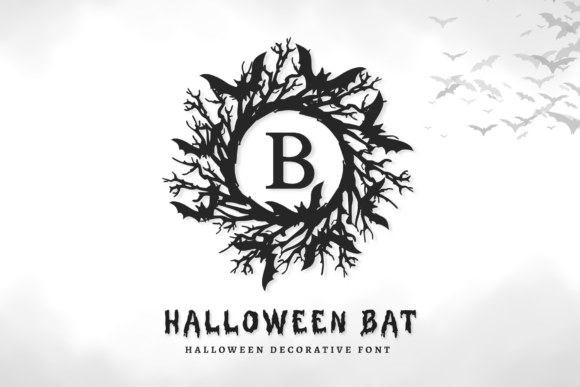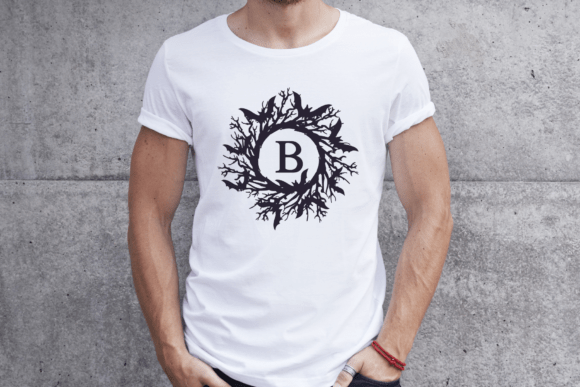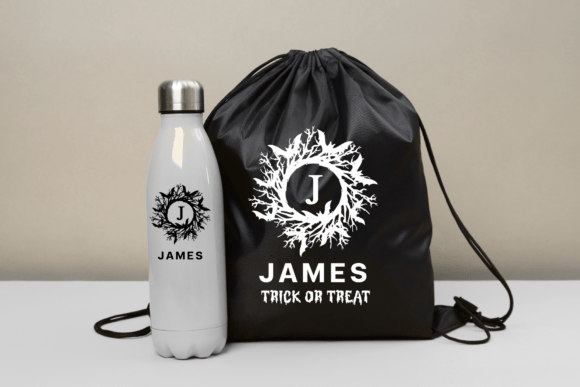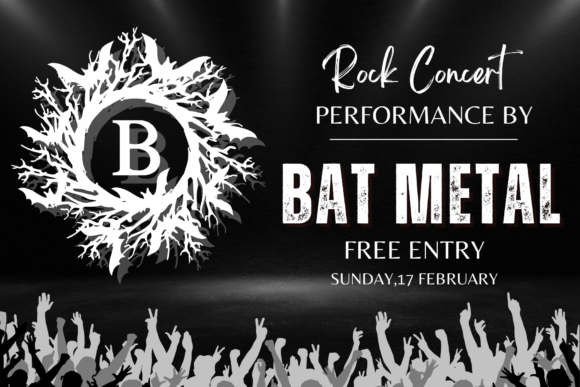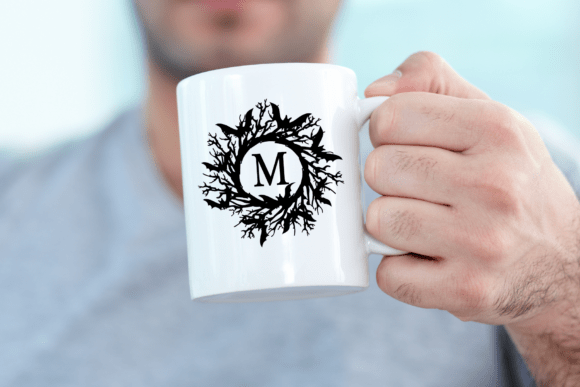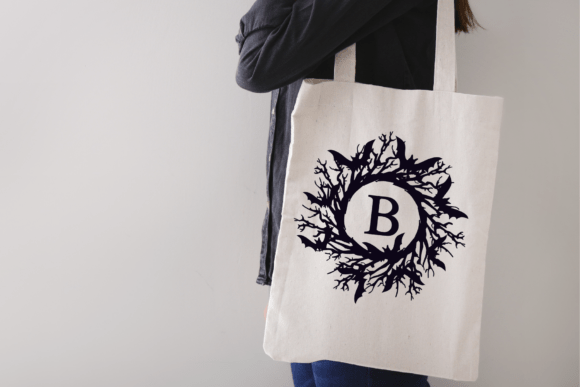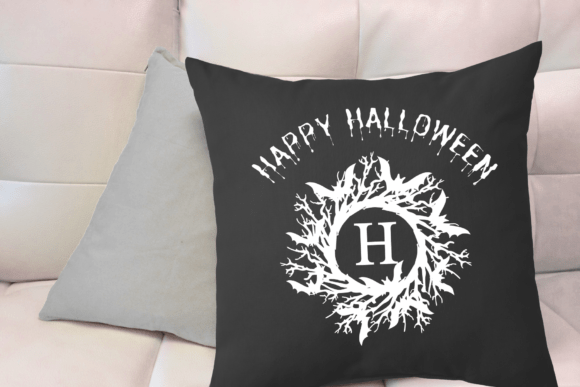
Unleash the Spooky Spirit with Halloween Bat Monogram Font
As I sat huddled around the campfire on a crisp autumn night, surrounded by flickering jack-o’-lanterns and the eerie whispers of the wind, I felt a spark of creative energy ignite within me. It was then that I stumbled upon the perfect way to bring my spooky designs to life – the enigmatic Halloween Bat Monogram Font.
This bewitching font is more than just a decorative tool; it’s a key to unlocking an immersive Halloween experience. By incorporating the Halloween Bat Monogram Font into your designs, you can instantly transport your audience to a realm of darkness and magic. Its unique and eerie aesthetic makes it an invaluable asset for designers seeking to craft captivating and unforgettable Halloween creations.
Halloween Bat Monogram Font Key Features
- Font Type: Monogram Font, perfect for Halloween-themed designs and decorations.
- Unique Characteristics: Distinctive bat monogram design, adding a spooky and festive touch to any Halloween-themed project.
Halloween Bat Monogram Font Review
I recently had the chance to work with the Halloween Bat Monogram Font, and I have to say it’s a real mixed bag. ✨ One thing that really stands out is its unique and spooky vibe. The bat monogram design is perfect for Halloween-themed projects or any design that needs a touch of darkness. The font is also highly customizable, allowing you to adjust the size, color, and position of the bats to fit your design needs.
Another positive aspect is the variety of styles available. The font comes in different weights, from light to bold, which makes it easy to create a cohesive design. The characters are also well-designed, with clean lines and a consistent look throughout.
- ⚠️ Limited usage outside of Halloween-themed projects: While the font is perfect for Halloween, it might not be the best choice for other types of projects.
- ⚠️ Limited customization options for the bats: While you can adjust the size and color, there aren’t many options to change the design of the bats themselves.
Overall, the Halloween Bat Monogram Font is a great choice for designers looking to add a spooky touch to their projects. However, it’s essential to consider its limitations and ensure it fits your design needs before using it.
Use the Halloween Bat Monogram Font to add a spooky touch to your Halloween-themed designs, invitations, and decorations.
Try combining the font with other Halloween-themed elements, such as bats, spiders, and pumpkins, to create a cohesive look.